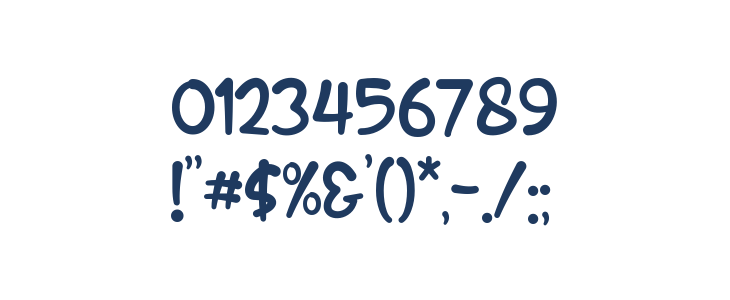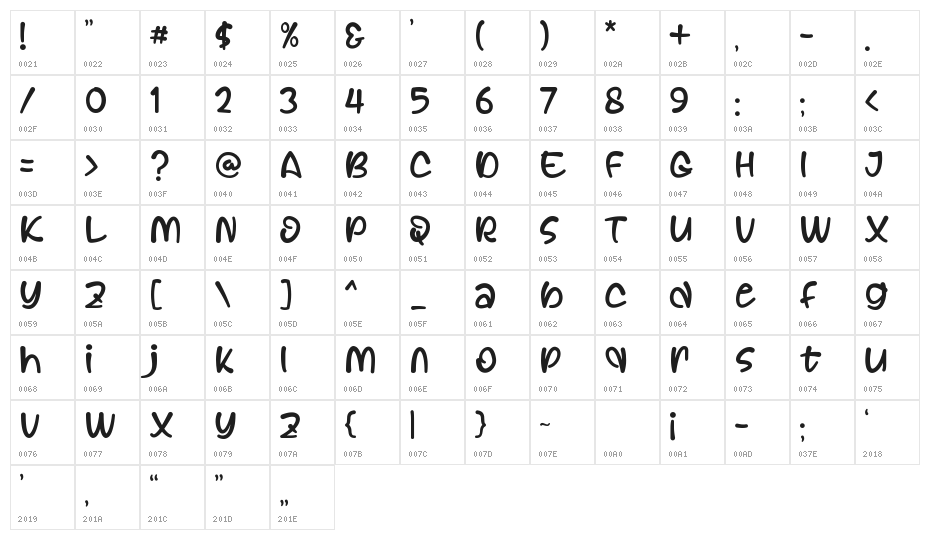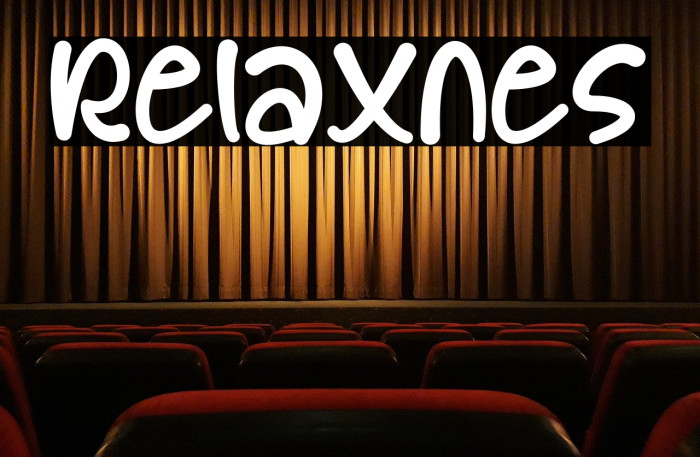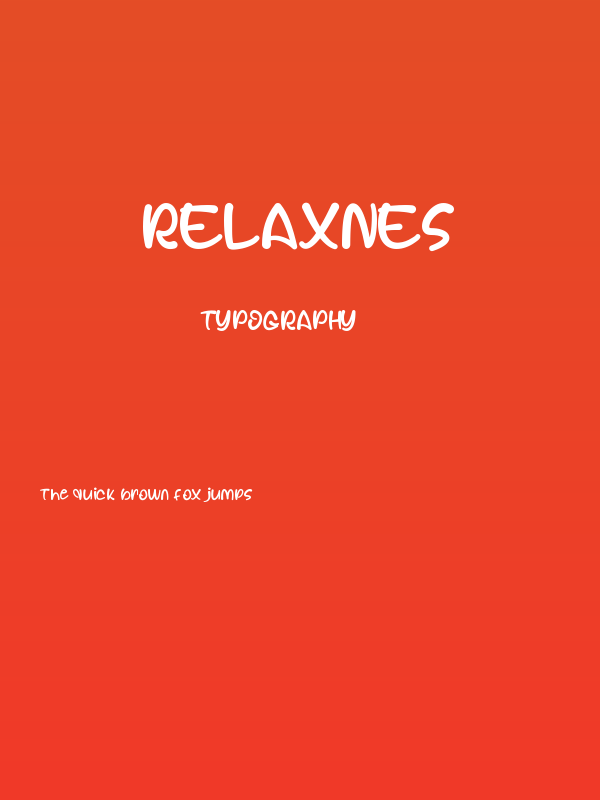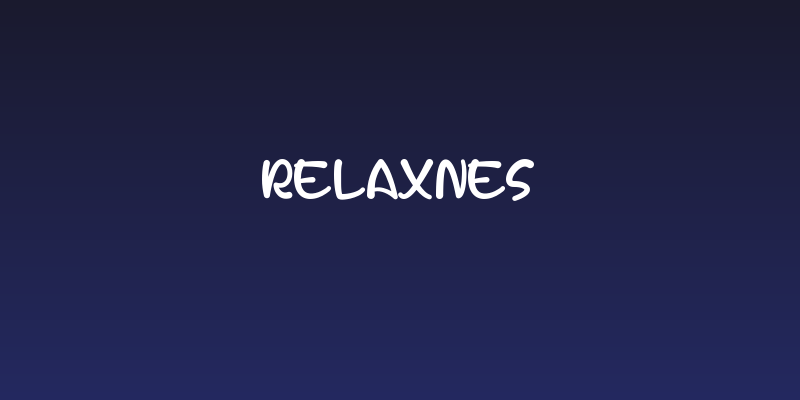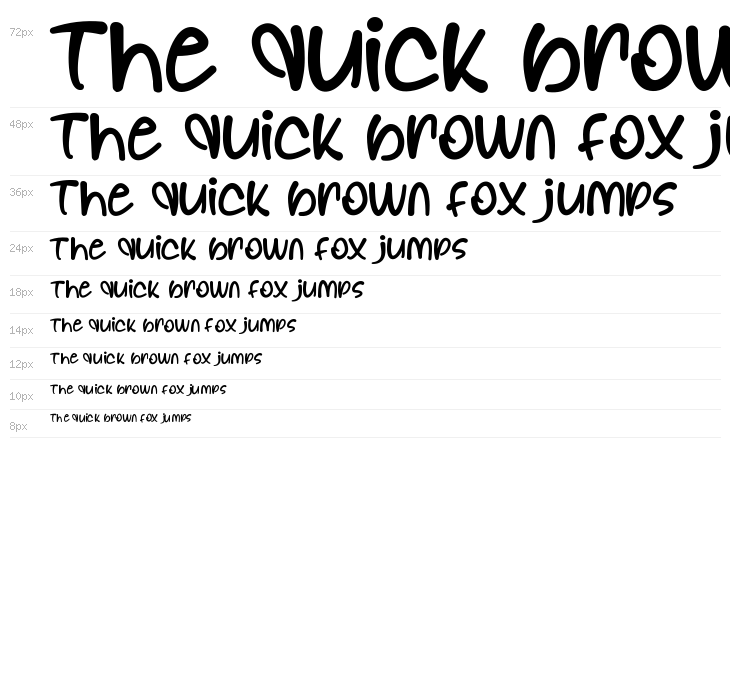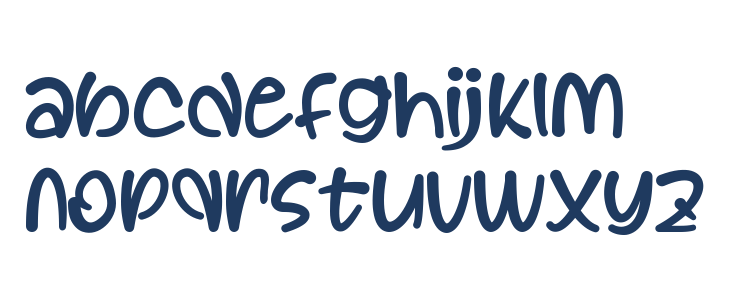
Relaxnes Font
Relaxnes Description
This playful and bold font features rounded, flowing characters that exude a sense of fun and creativity. The letters are slightly irregular, giving it a hand-drawn, casual appearance. The strokes are thick and consistent, providing a strong visual impact. The font maintains a uniform weight throughout, with smooth curves and a lively, energetic feel. It includes a full set of uppercase and lowercase letters, numbers, and a variety of special characters, making it versatile for different design needs. The overall style is informal and approachable, perfect for projects that require a friendly and engaging look.
| Proposed Projects | Ideal for children's books, playful branding, casual invitations, and creative posters. |